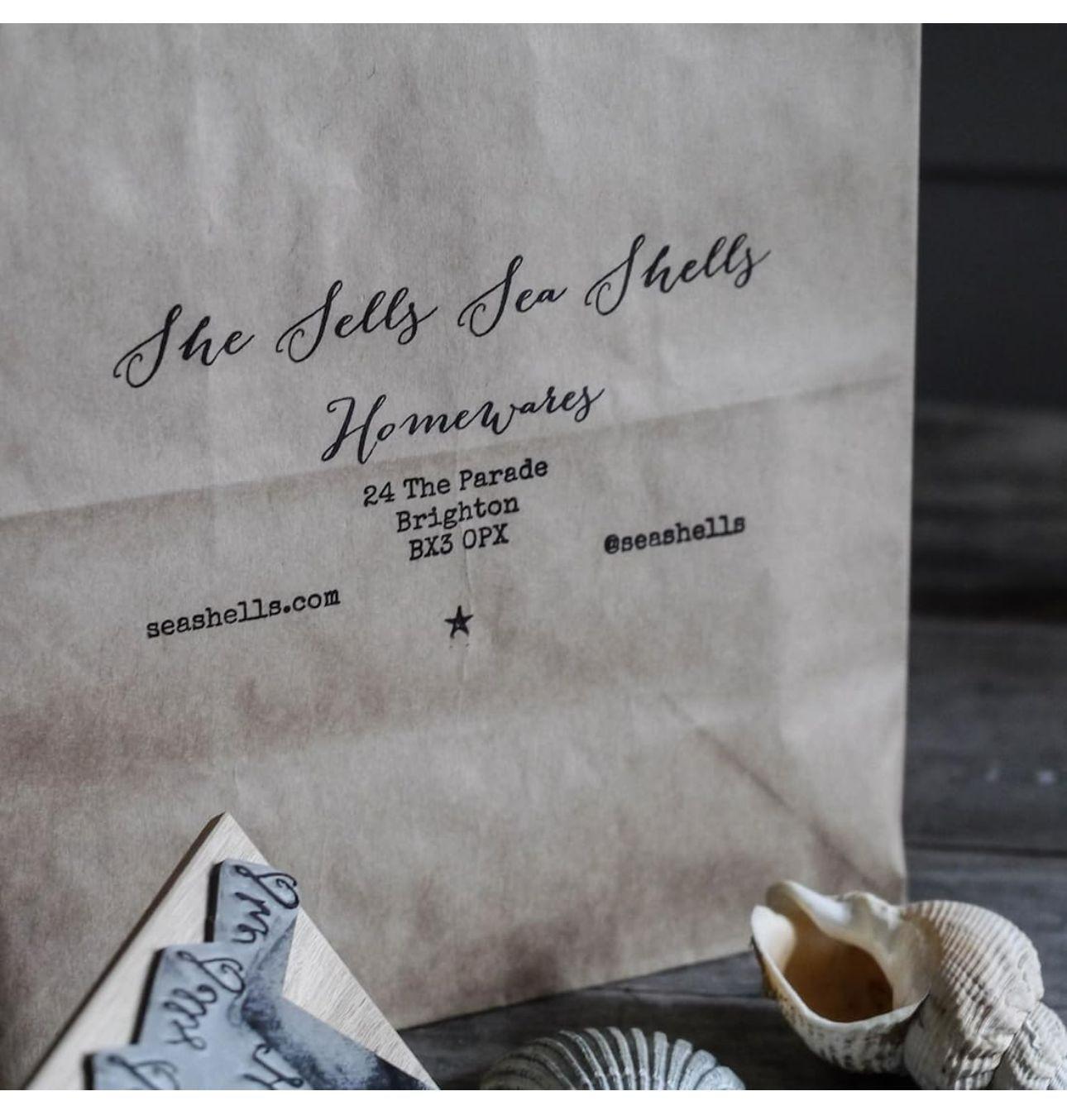
Looking for this wedding-like typography (seashells.com)
Hello, I'm looking for this typograhy. Can you help me? The one with the text "She Sells Sea Shells".